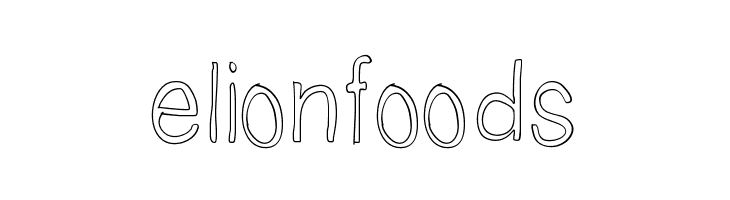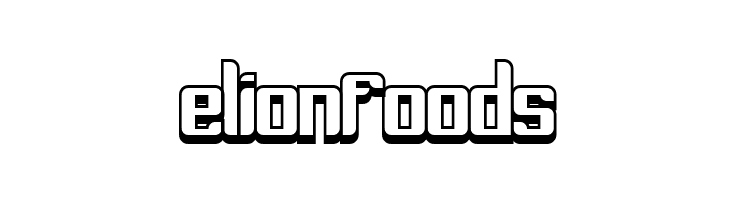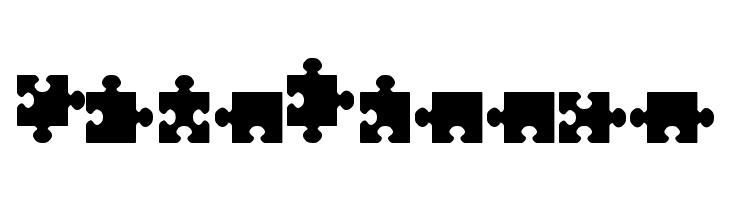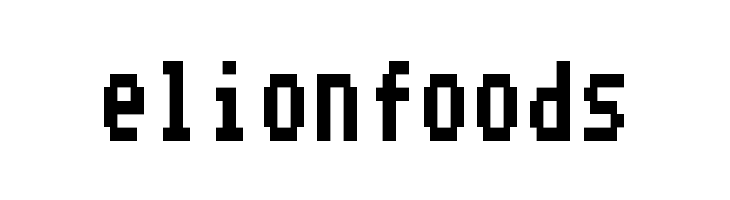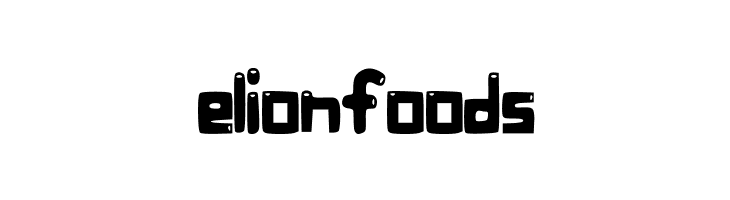
A bold, geometric font with a shadow effect for a modern, three-dimensional look.
A playful design of interconnected jigsaw puzzle pieces forming characters.
A playful, bold font with a hand-drawn outline effect.
A pixelated, retro-style font with a blocky, digital appearance.
A pixelated, retro-style font with a blocky, geometric appearance.
A pixelated, retro-style font with a digital, blocky appearance.
A pixelated, monospaced font with a retro digital style.